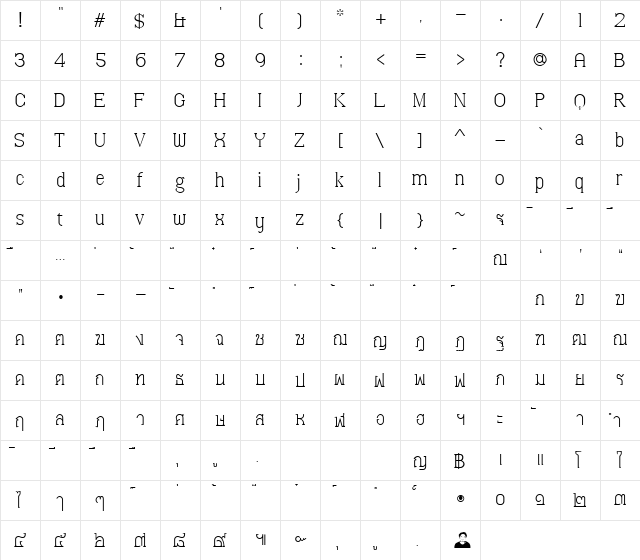
Ti_Serif Regular
| Foundry | Warit Chaiyakul |
| Designer | Warit Chaiyakul |
Design Context for Ti_Serif Typeface
Ti_Serif carries the refined structure of traditional serif typography, with bracketed terminals and considered proportions that communicate credibility and craft.
Pro Tip: Use Ti_Serif for editorial body copy and considered headline work. Pair with a neutral sans for UI elements or captions to create a classic hierarchy.